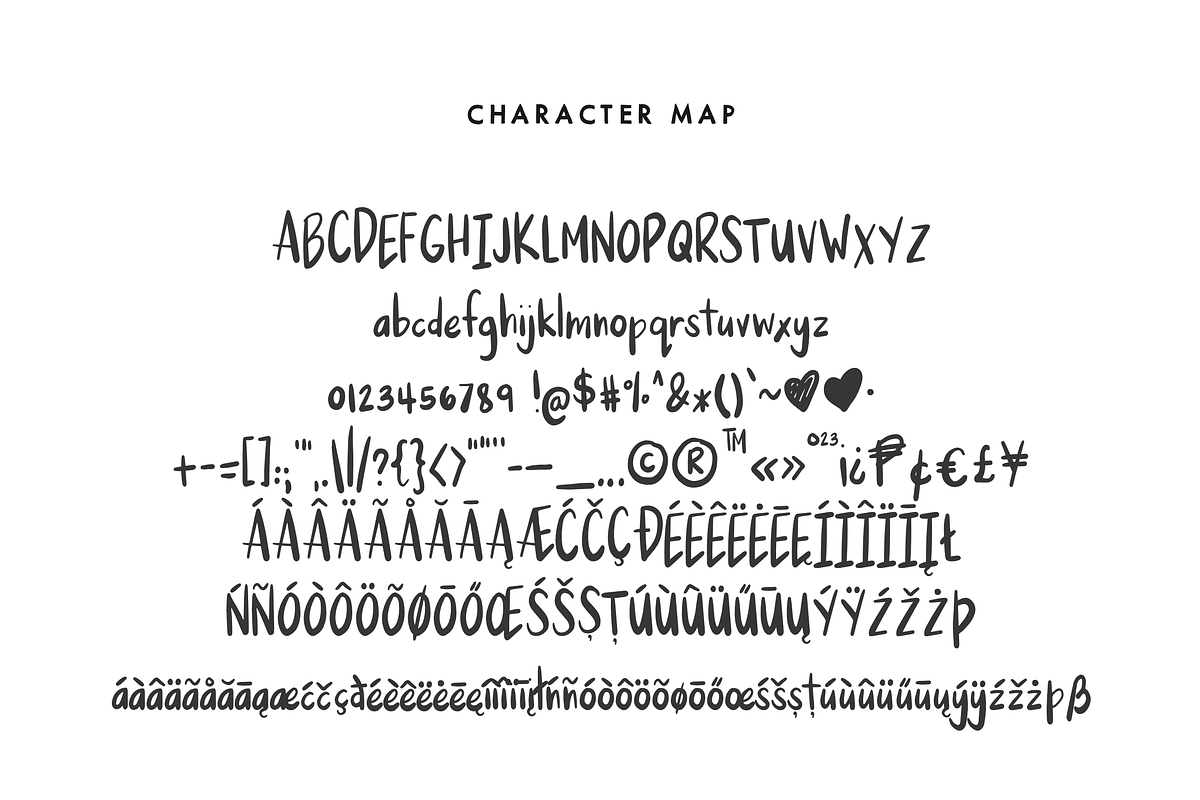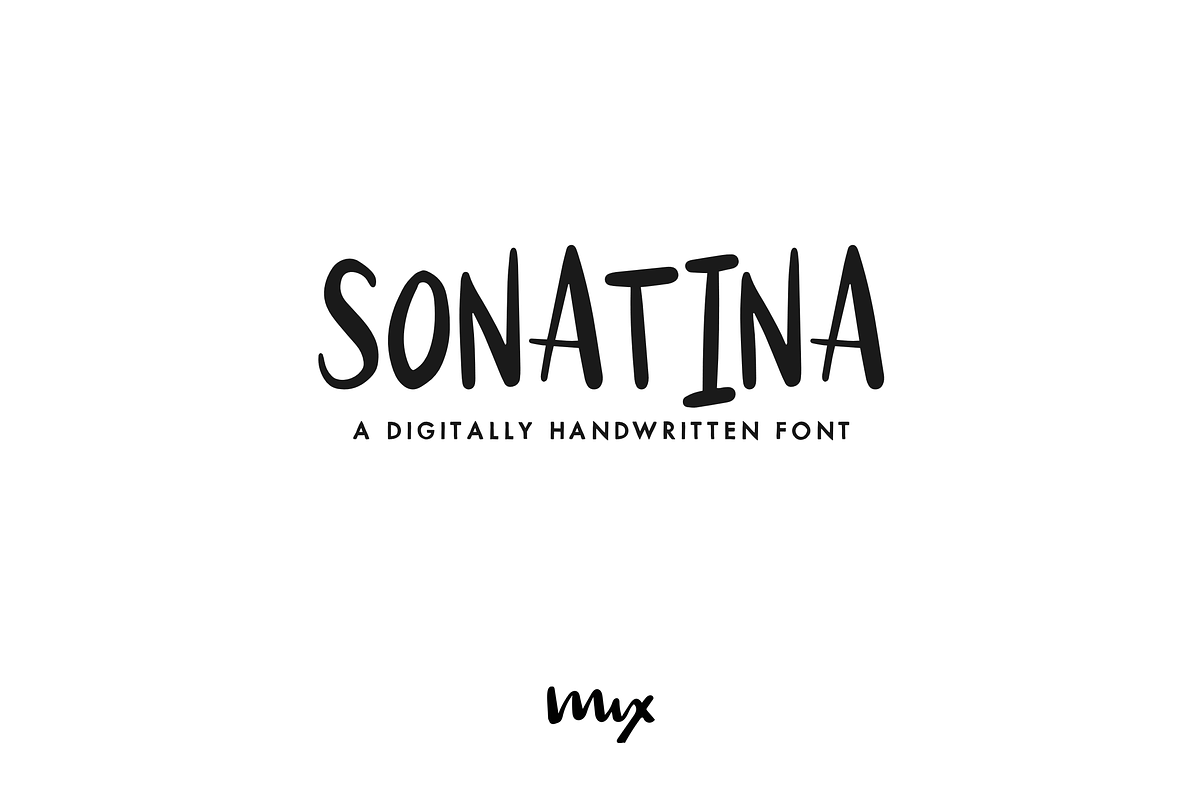
Sonatina — A Handwritten Font
Sonatina — A Handwritten Font by Mix Fonts is a font selected for branding, posters, packaging, typography.
Why Sonatina — A Handwritten Font is worth a look
Sonatina — A Handwritten Font by Mix Fonts fits naturally into Branding, posters, packaging, typography.